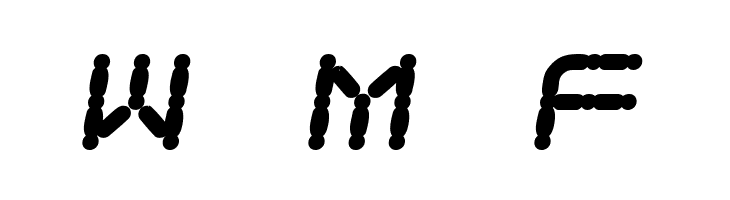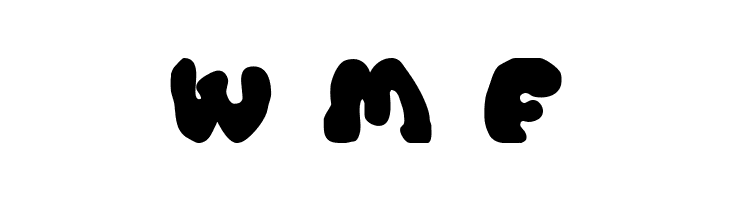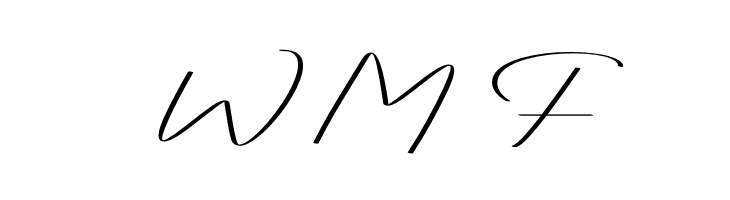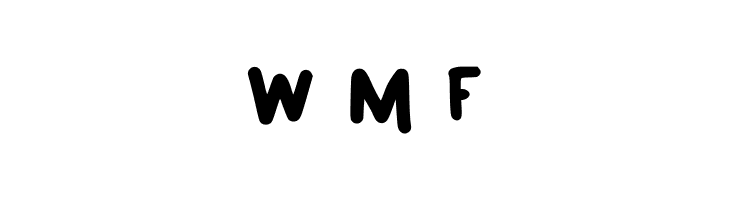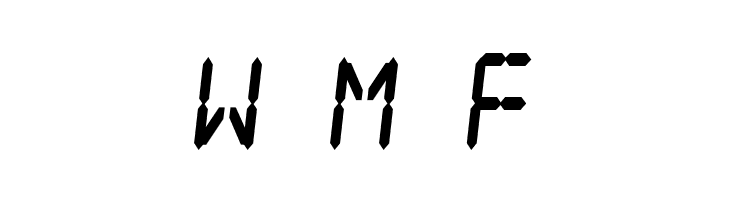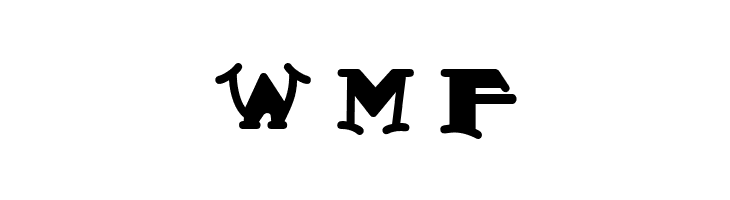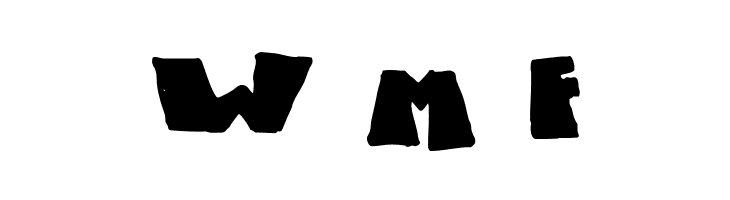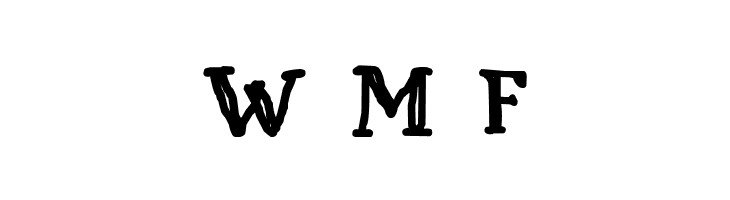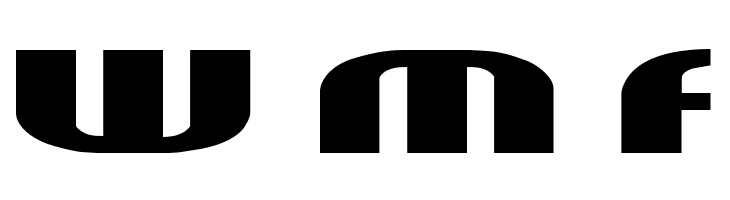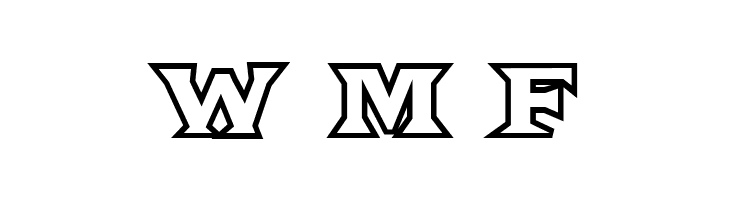
Elegant cursive handwritten font.
Playful and rounded font with thick strokes.
A futuristic, geometric font with a sleek and modern design.
A playful, wavy font with a unique and quirky style.
A futuristic, segmented font with a tech-inspired, dynamic design.
A bold, thick font with wide, robust characters ideal for impactful designs.
A futuristic, dotted font with a digital and modern aesthetic.
A digital, futuristic font with a skewed, narrow design and bold geometric shapes.
A bold, playful handwritten font with a graffiti-like style.
A bold, playful font with a 3D effect and dynamic style.
A bold, angular font with a geometric and impactful design.
A bold, playful font with exaggerated serifs and whimsical style.
A bold, playful font with chunky, rounded letterforms and a whimsical style.
A playful, smiley-adorned decorative font perfect for fun and engaging designs.
A bold, geometric font with a digital, futuristic style.
A futuristic, skewed font with a digital, geometric style.
A bold, outlined font with a strong, decorative style.
A pixelated, digital-style font with a retro, blocky appearance.
A bold, rounded, and playful font with a chunky, bubble-like appearance.
A bold, italic, and condensed font with a modern and dynamic style.